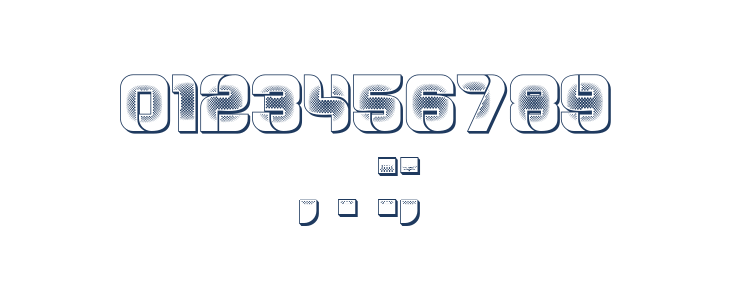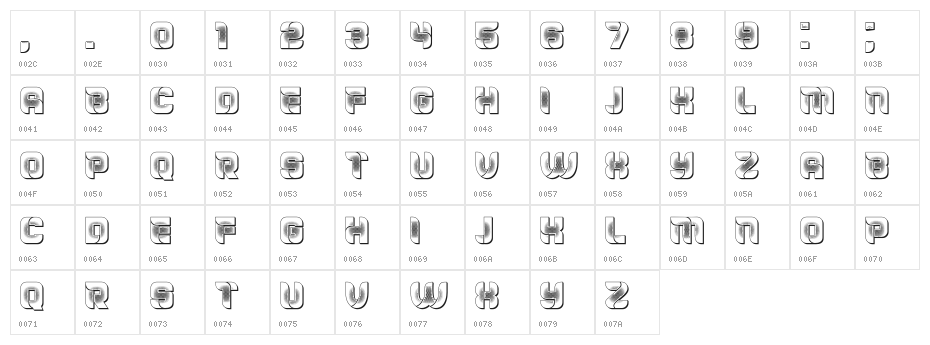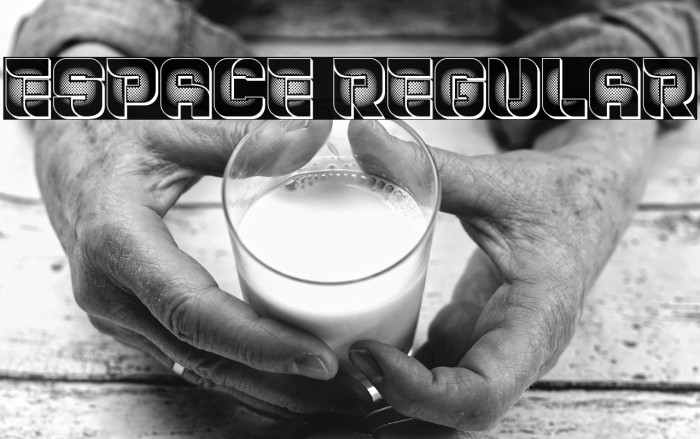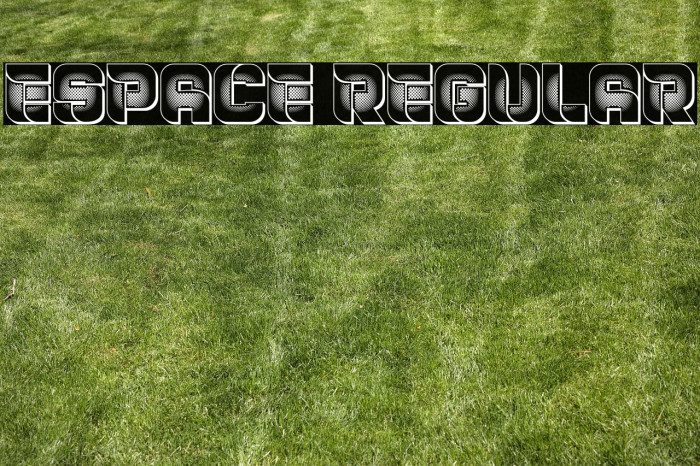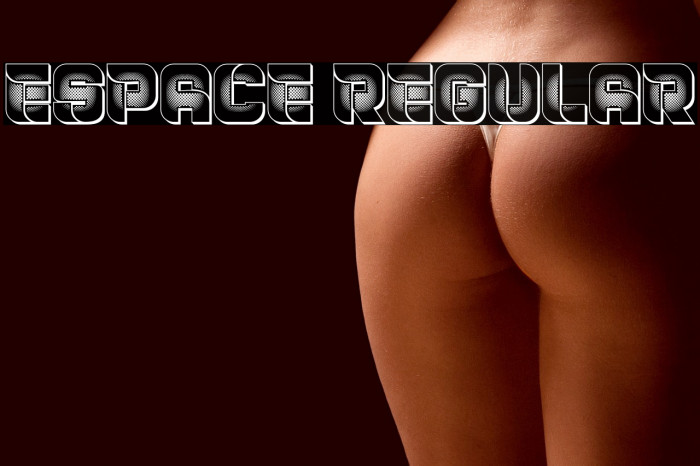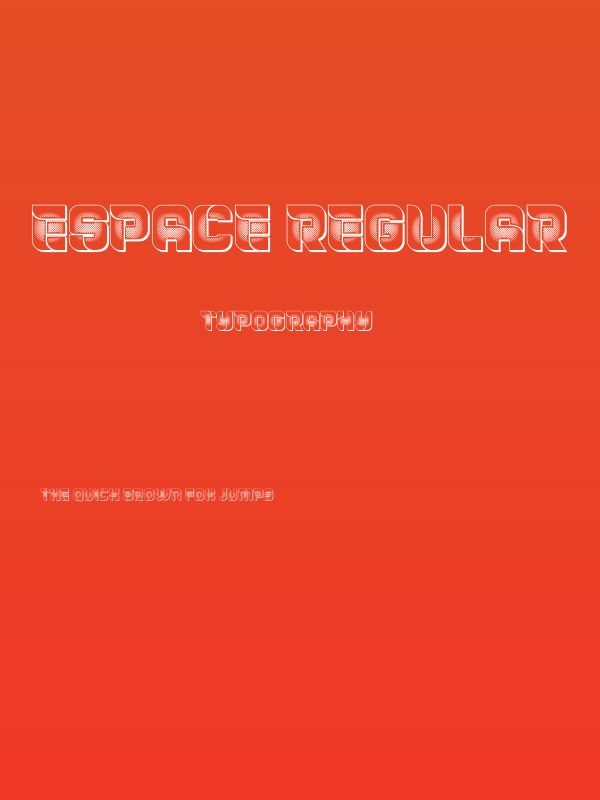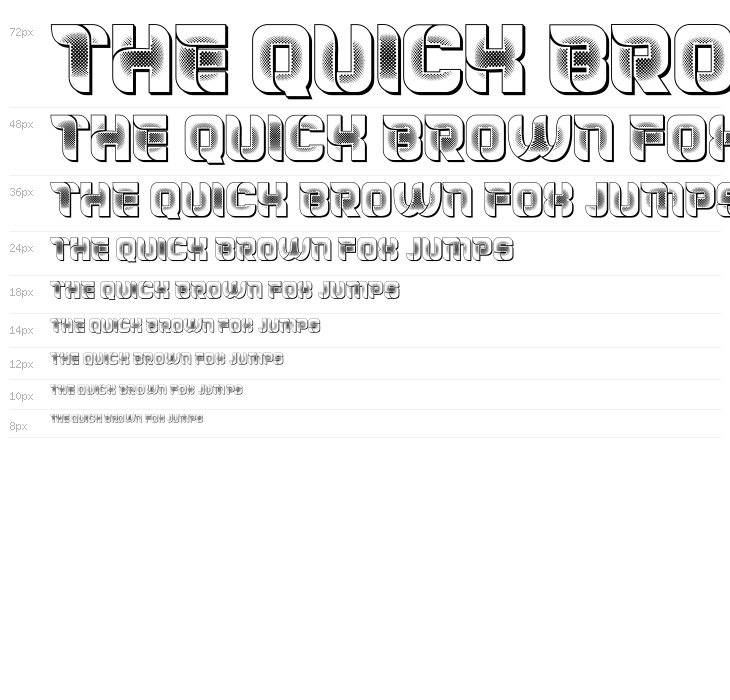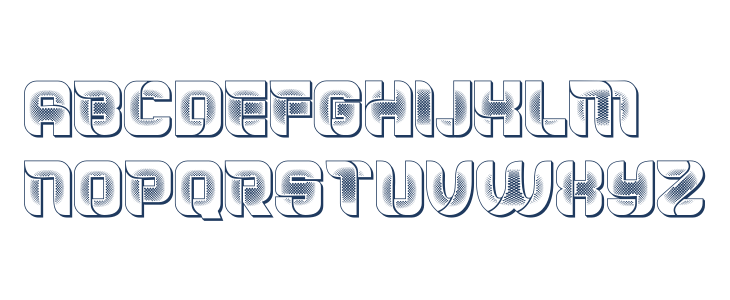
Espace Regular Font
Espace Regular Description
This font features a bold, three-dimensional appearance with a distinct halftone pattern filling each character. The letters are uppercase and have a blocky, geometric style that gives them a strong, impactful presence. The design incorporates a shadow effect, enhancing the 3D illusion and adding depth. The characters are uniformly wide, with consistent spacing that maintains readability despite the intricate detailing. The numbers and special characters follow the same stylistic approach, ensuring a cohesive look across all elements.
| Proposed Projects | Ideal for posters, headlines, branding, and any project requiring a striking, modern aesthetic. |